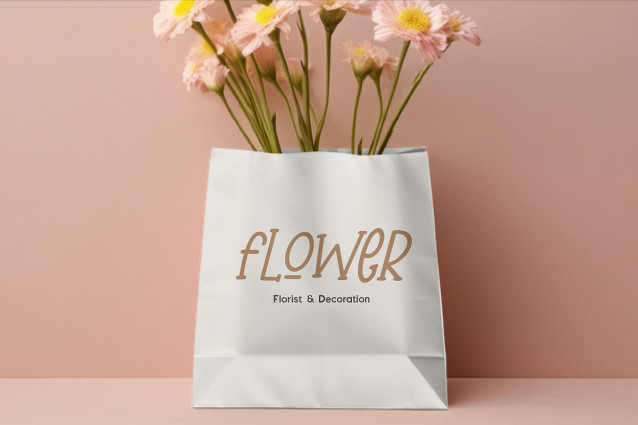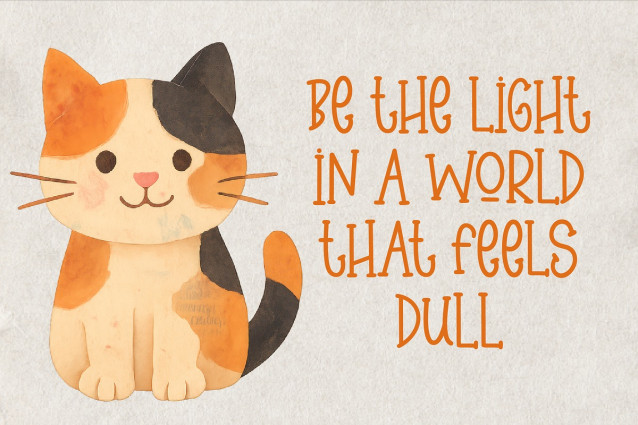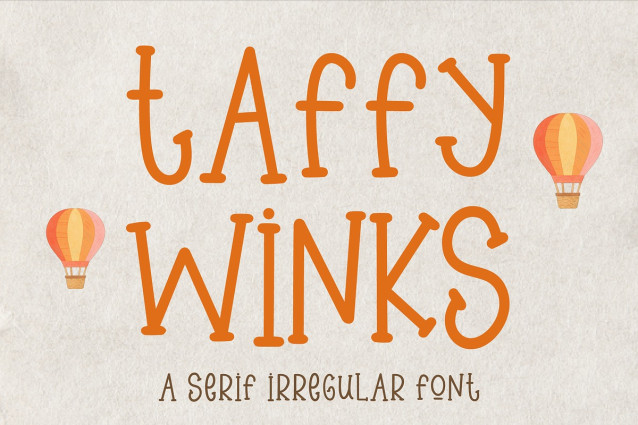
CF Taffy Winks Font
CF Taffy Winks is a whimsical serif display font that brings a dash of delightful irregularity to your designs. Inspired by playful childhood memories and handwritten storybook titles, this typeface blends quirky letterforms with structured serifs to create a unique, charming personality.
Each letter in Taffy Winks carries a hand-crafted feel, featuring unexpected angles and organic shapes that add movement and character. Its tall x-height and wide stance make it highly legible at larger sizes, while its unpredictable twists give headlines and creative graphics a touch of friendly mischief. Taffy Winks is ideal for children’s books, toy packaging, party invitations, logos, and any project that calls for a burst of joy and imagination.